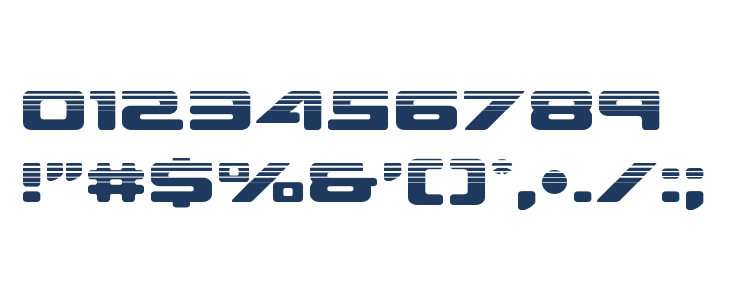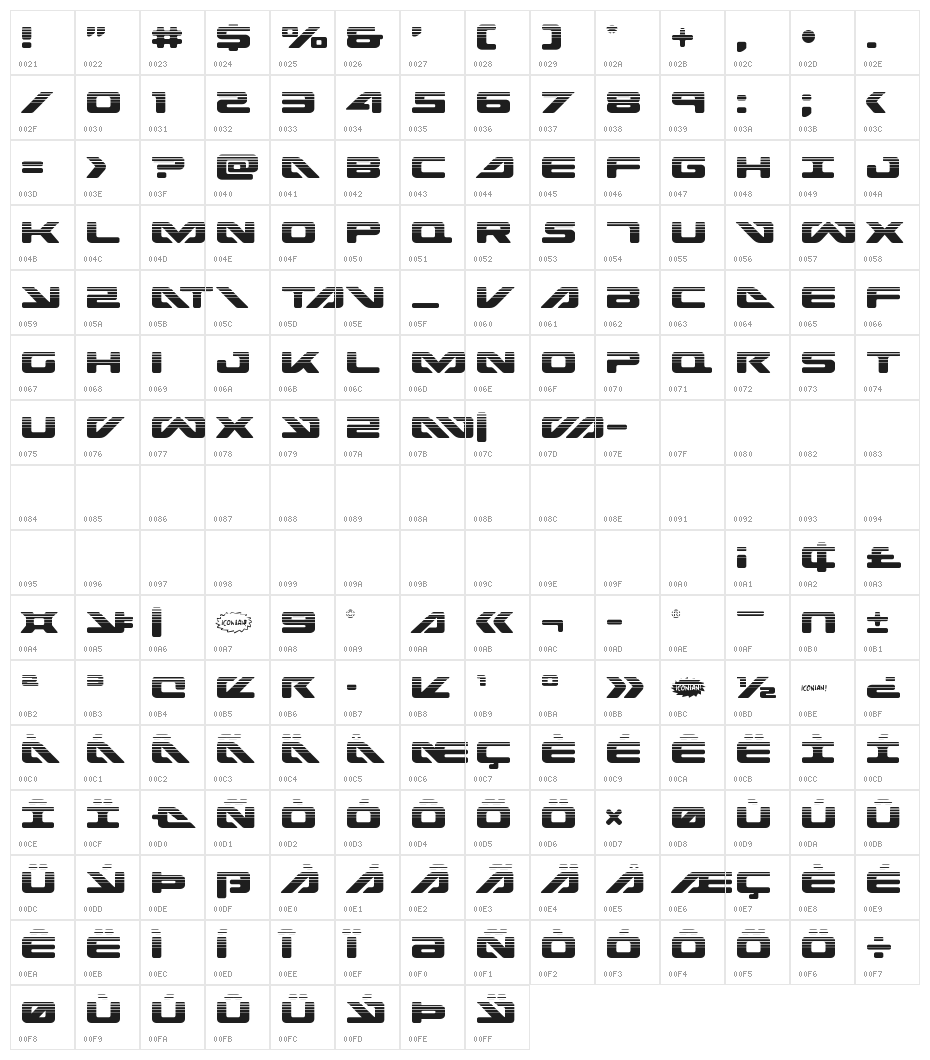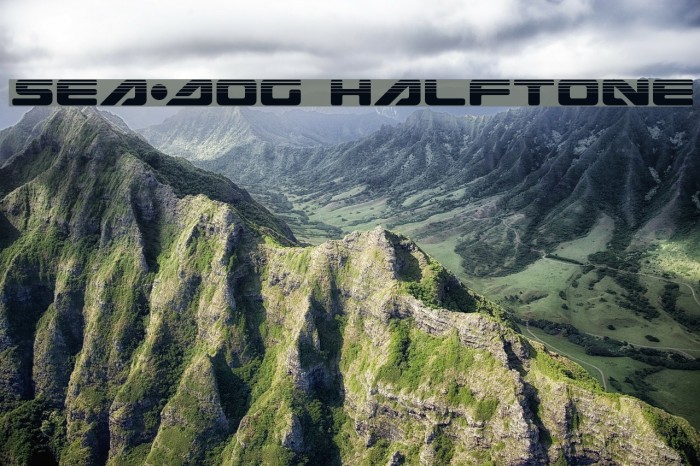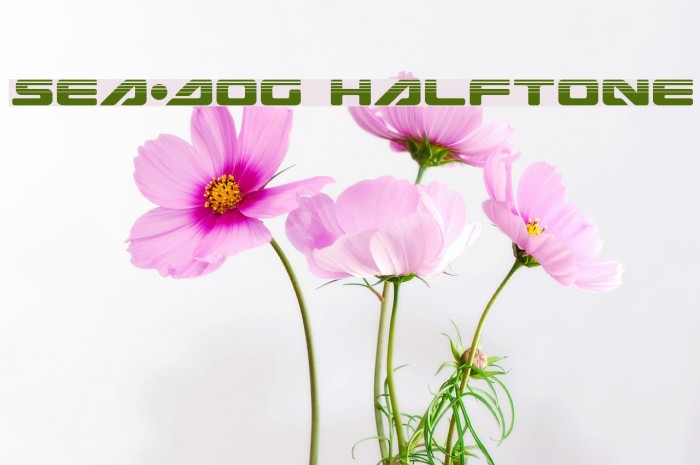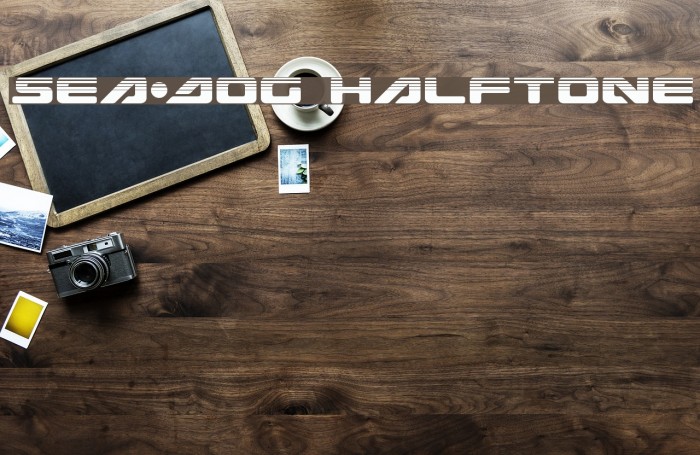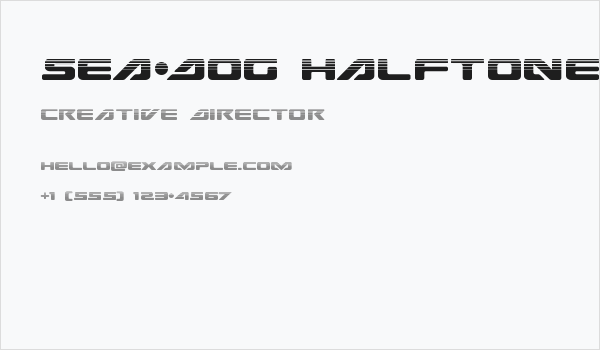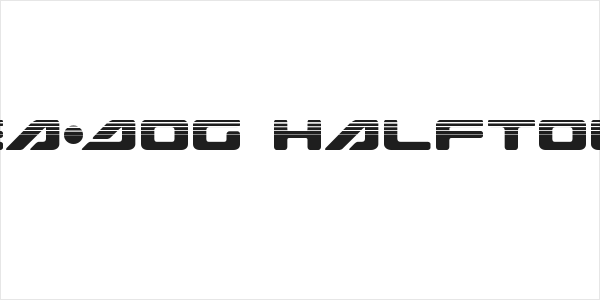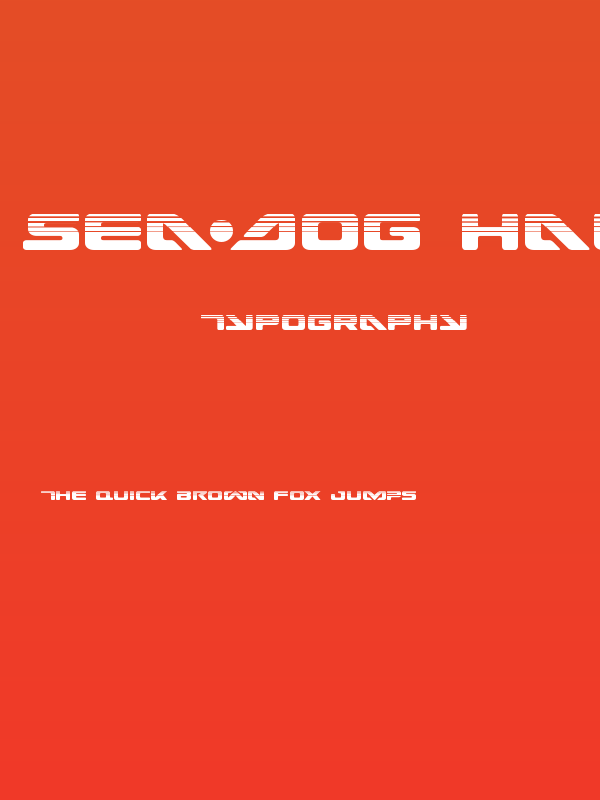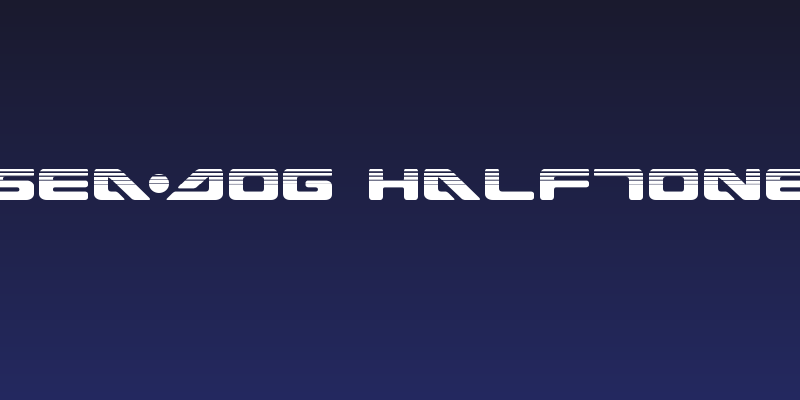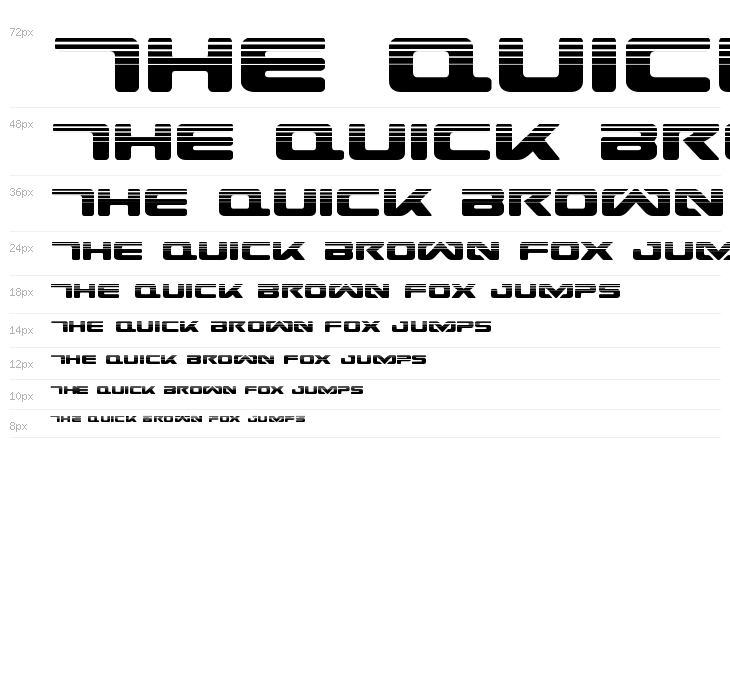
Sea-Dog Halftone Font
Sea-Dog Halftone Description
This font features a bold, modern design with a distinctive halftone effect. The characters are constructed with horizontal lines that create a sense of movement and energy. The uppercase and lowercase letters maintain a consistent style, emphasizing geometric shapes and sharp angles. The numerals and special characters follow the same design principles, ensuring uniformity across all glyphs. This font's unique style makes it stand out, ideal for projects that require a futuristic or tech-inspired aesthetic.
| Proposed Projects | Ideal for tech branding, futuristic posters, video game titles, and digital media. |